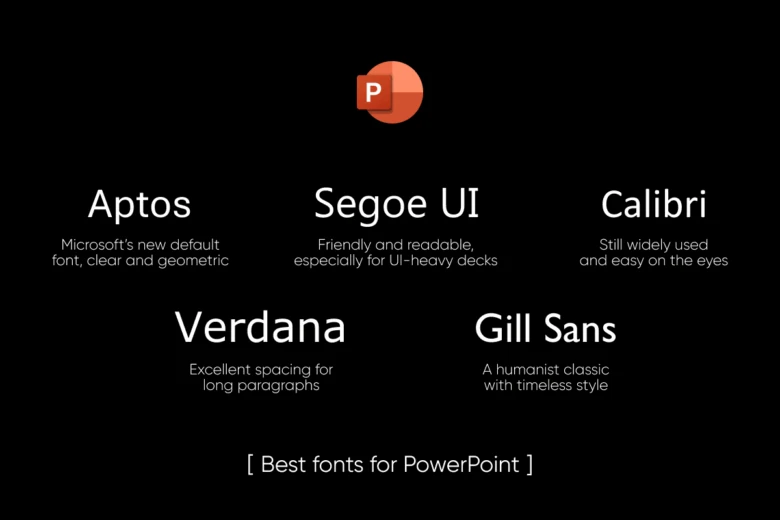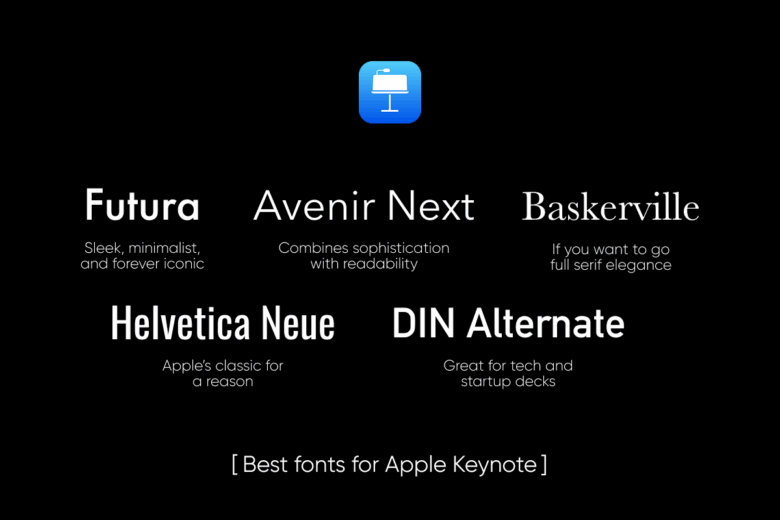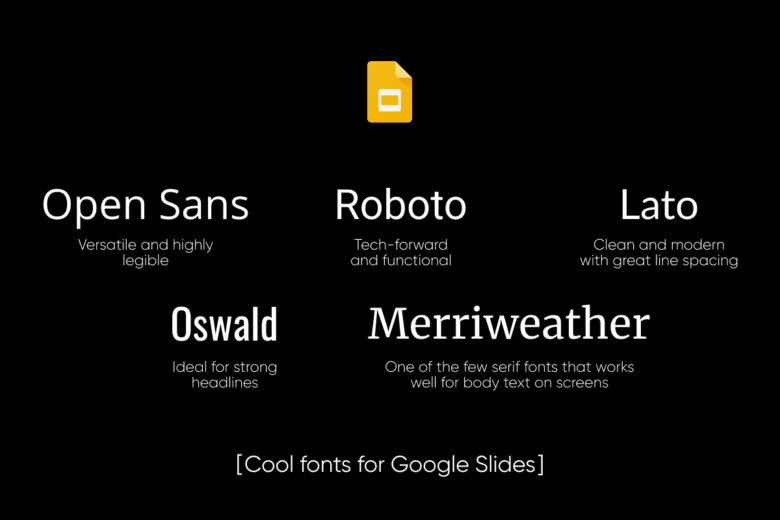
The right font can make or break your presentation. It sets the tone, guides attention, and ensures your audience actually reads what’s on the screen. Whether you’re creating a pitch deck, a classroom slideshow, or a poster for a conference, choosing the best fonts for presentations is your secret weapon for instant visual impact.
In this guide, we’ll explore 20 must-use fonts for every popular platform – PowerPoint, Google Slides, Keynote and Prezi. You’ll also find tips on using AI-generated fonts, slideshow builders, and where to find the best fonts for presentation free online.
What makes a great presentation font?
Before we dive into the list, here’s what to look for:
• Readability: The easiest font to read while presenting is often a clean sans serif like Roboto or Open Sans.
• Aesthetic appeal: Fonts that feel modern, balanced, and on-brand.
• Versatility: Works well for both headers and body copy.
• Free or accessible: Bonus points if it’s easy to use across devices or platforms.
Best fonts for PowerPoint
PowerPoint remains the go-to for business presentations, and the following fonts strike the right balance between professional and polished:
1. Aptos – Microsoft’s new default font, clear and geometric
2. Segoe UI – Friendly and readable, especially for UI-heavy decks
3. Calibri – Still widely used and easy on the eyes
4. Verdana – Excellent spacing for long paragraphs
5. Gill Sans – A humanist classic with timeless style
Cool fonts for Google Slides
Looking for fonts that load easily in the cloud and maintain quality across devices? Google Slides-friendly fonts include:
1. Open Sans – Versatile and highly legible
2. Roboto – Tech-forward and functional
3. Lato – Clean and modern with great line spacing
4. Oswald – Ideal for strong headlines
5. Merriweather – One of the few serif fonts that works well for body text on screens
Best fonts for Apple Keynote
Apple’s slick design interface deserves fonts that feel premium yet simple:
1. Futura – Sleek, minimalist, and forever iconic
2. Avenir Next – Combines sophistication with readability
3. DIN Alternate – Great for tech and startup decks
4. Helvetica Neue – Apple’s classic for a reason
5. Baskerville – If you want to go full serif elegance
Should You Use Custom Fonts in Presentations?
Custom fonts can instantly elevate your visual branding, especially if you want to stand out. But remember:
• Always embed your fonts when exporting to PDF or sharing your presentation.
• Not all fonts are supported across platforms – test compatibility on your chosen tool.
If you’re presenting in unconventional formats – like vertical slides for social media or interactive product showcases – custom fonts help capture attention in milliseconds.
Conclusion: Fonts that do more than speak
The cool presentation fonts don’t just say something – they show it. A well-chosen font supports your message, reinforces your tone, and helps your audience stay engaged.